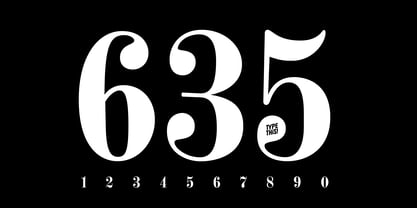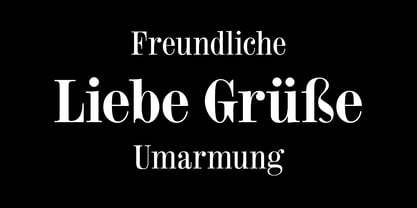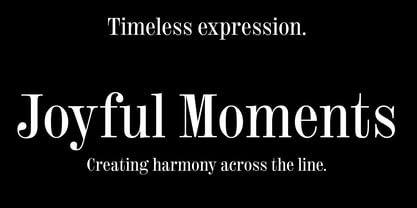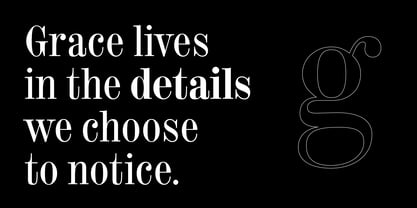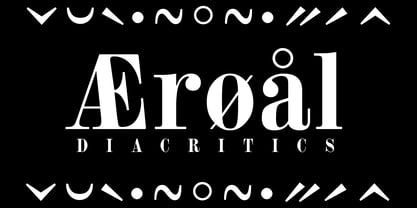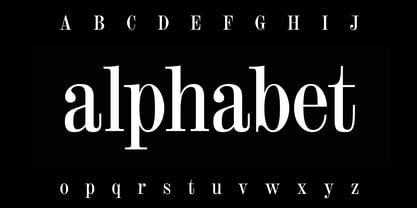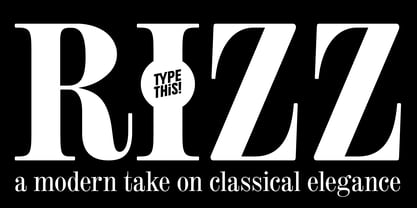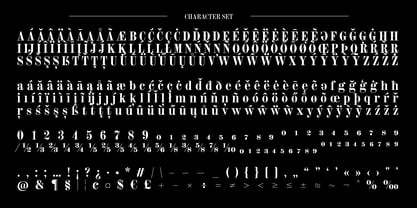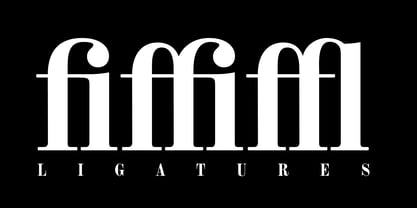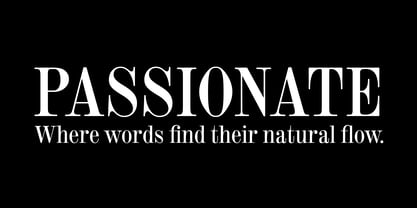
Rizz
von TypeThis!Studio
Die Schriftfamilie Rizz wurde von Anita Jürgeleit entworfen und von TypeThis!Studio veröffentlicht. Rizz enthält 2 Stile und Familienpaketoptionen. Mehr über diese Familie
Rizz is a narrow, elegant Antiqua that blends historical character with modern readability. Its balanced contrast and refined proportions make it perfect for editorial design, branding, book covers, packaging, and any project that combines classic elegance with contemporary flair. With two styles — Regular and Bold — and comprehensive OpenType features, Rizz allows you to incorporate typographic nuances directly into your layouts. Ideal for designers who love historical vibes while keeping their text clean and highly legible. Features: - 2 Styles: Regular, Bold - OpenType Features: Ligatures, Fractions, Numerators & Denominators, Subscript & Superscript - Supports Western European Latin-based languages
Designer: Anita Jürgeleit
Foundry: TypeThis!Studio